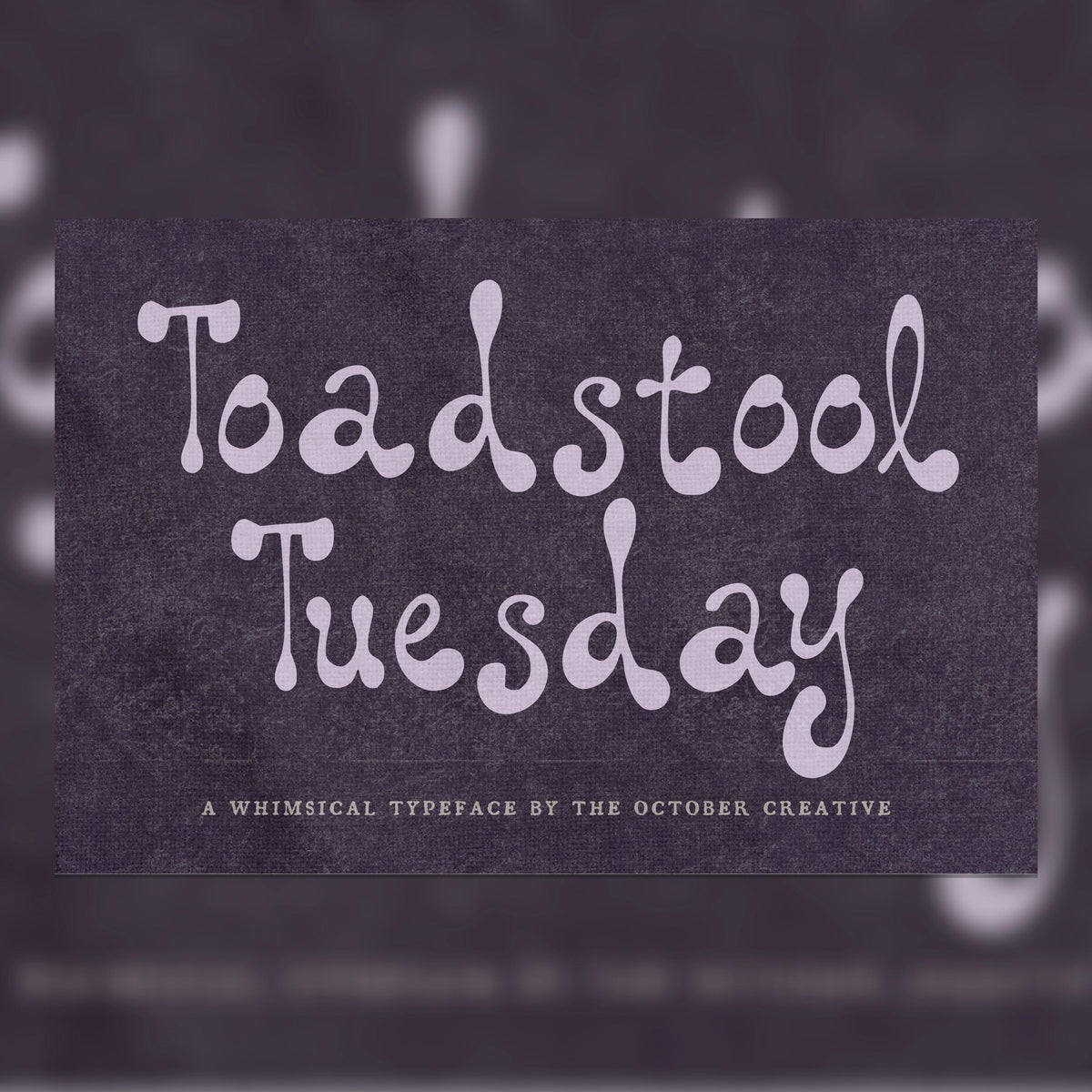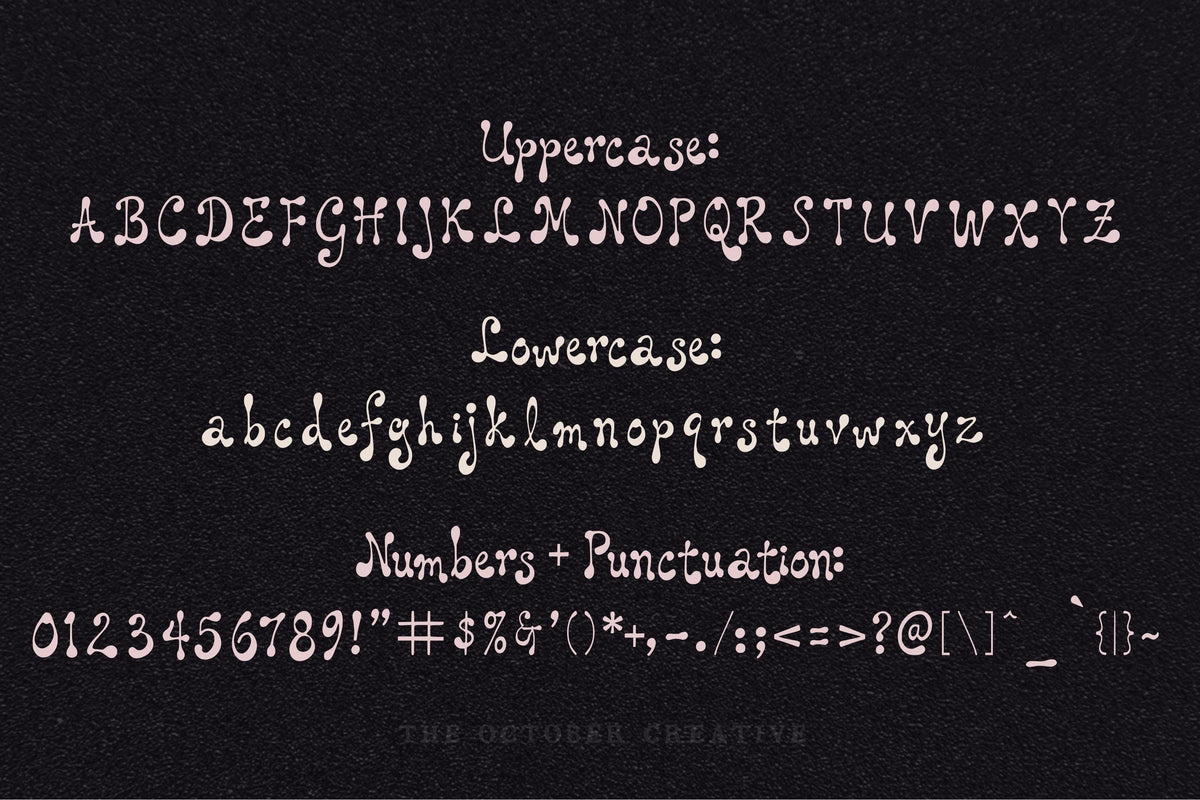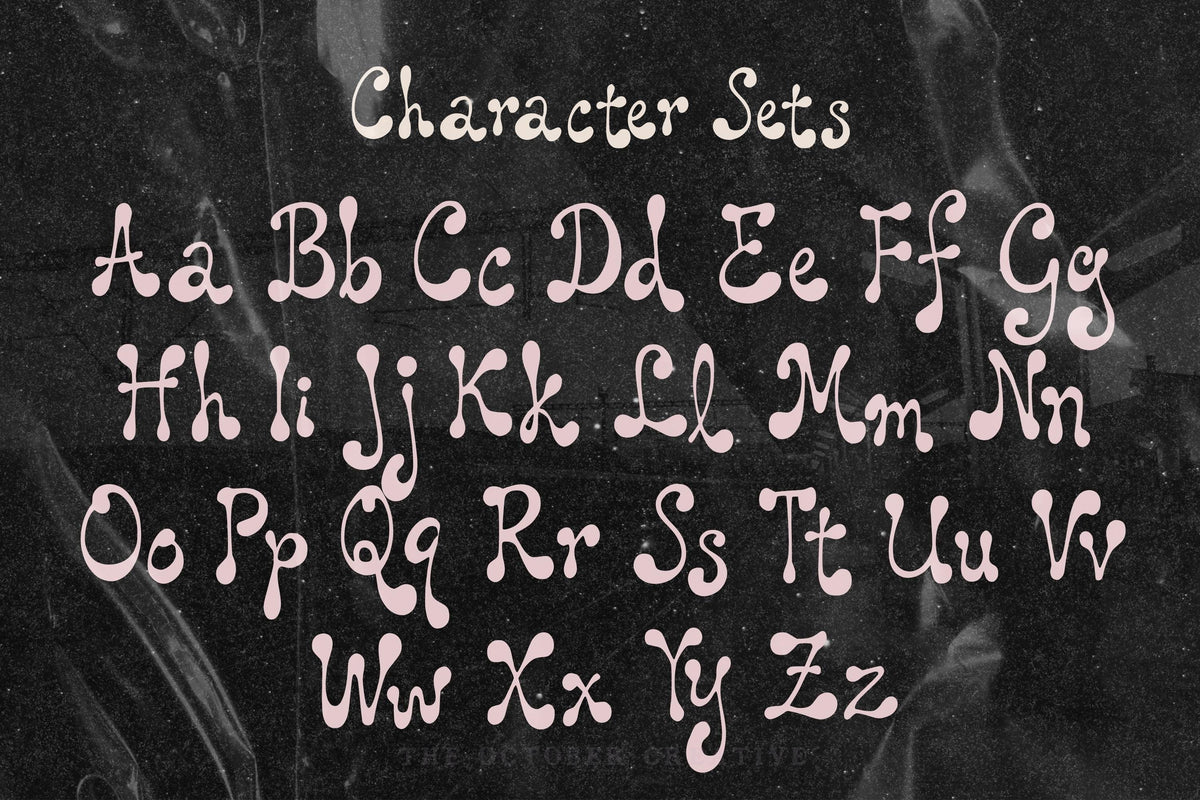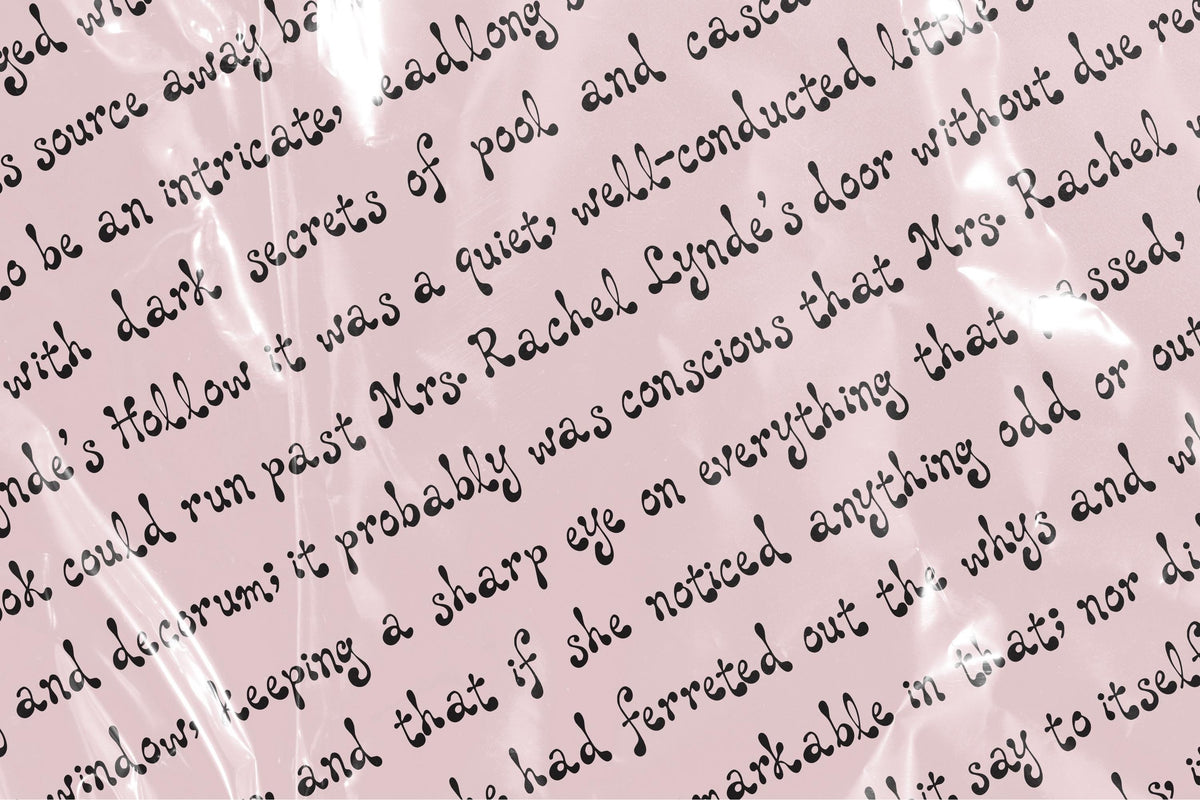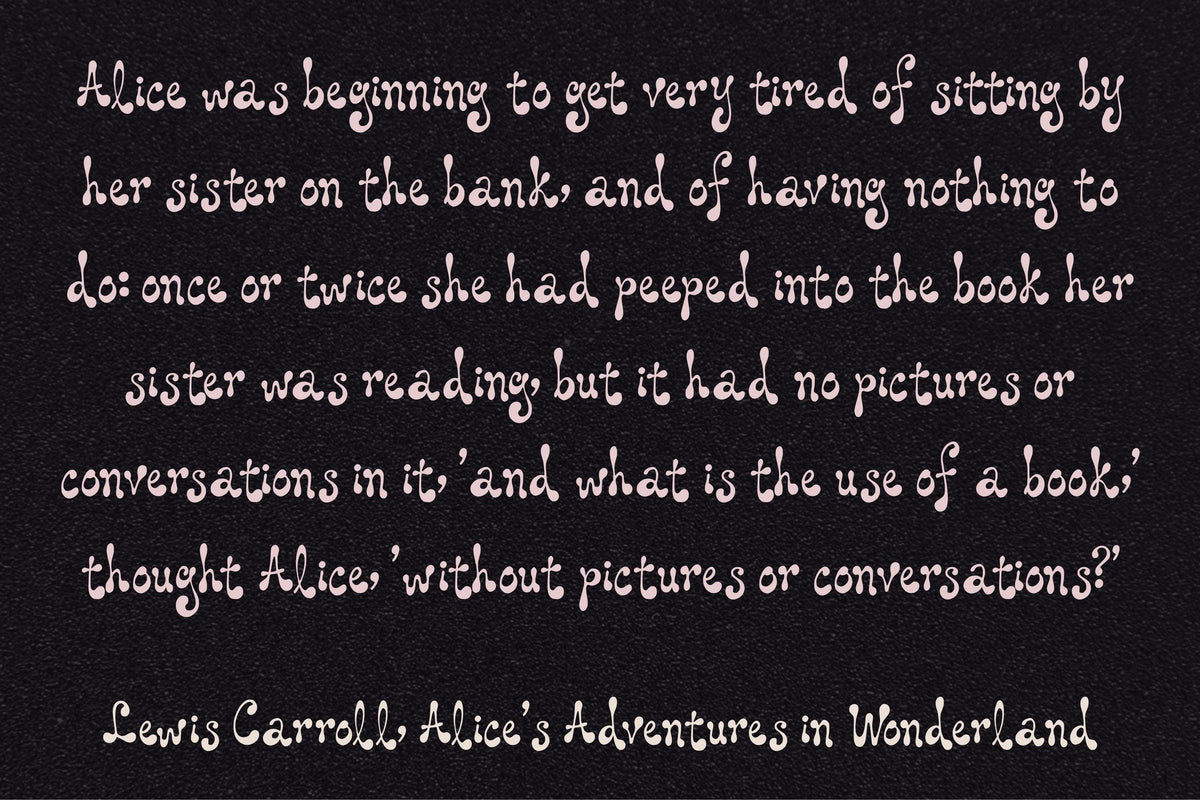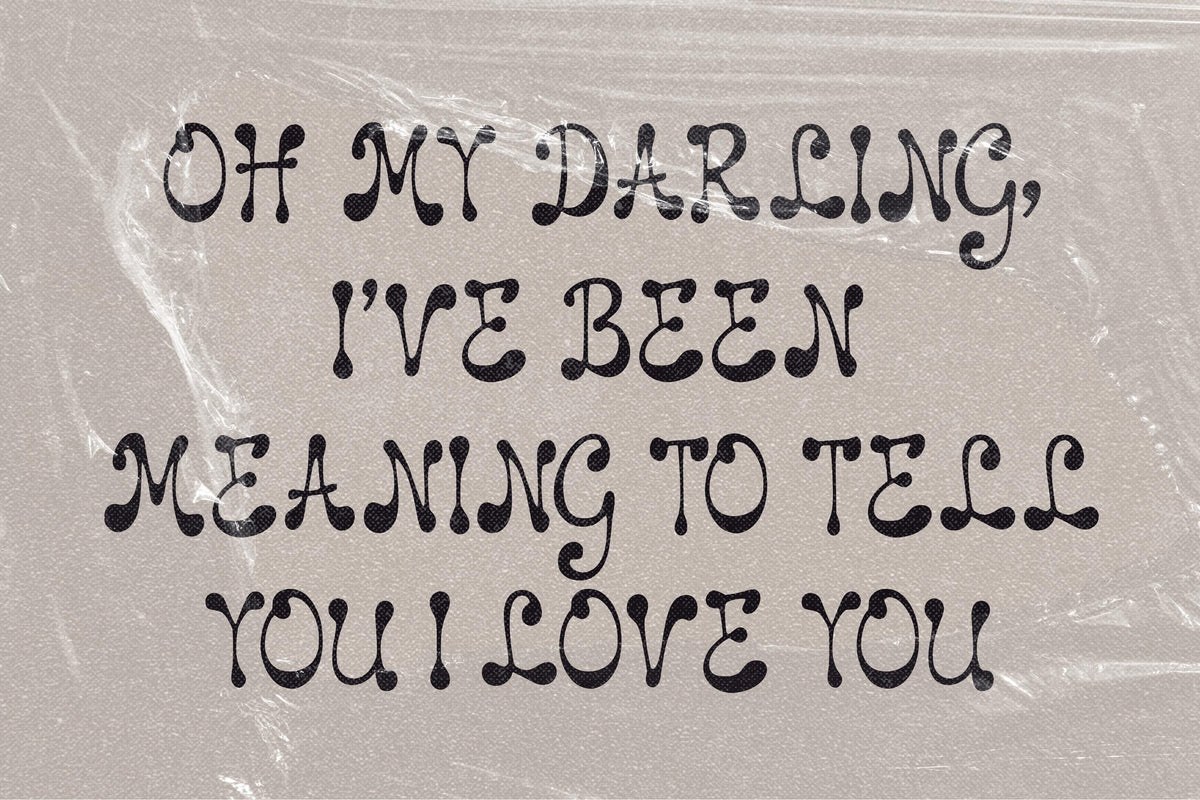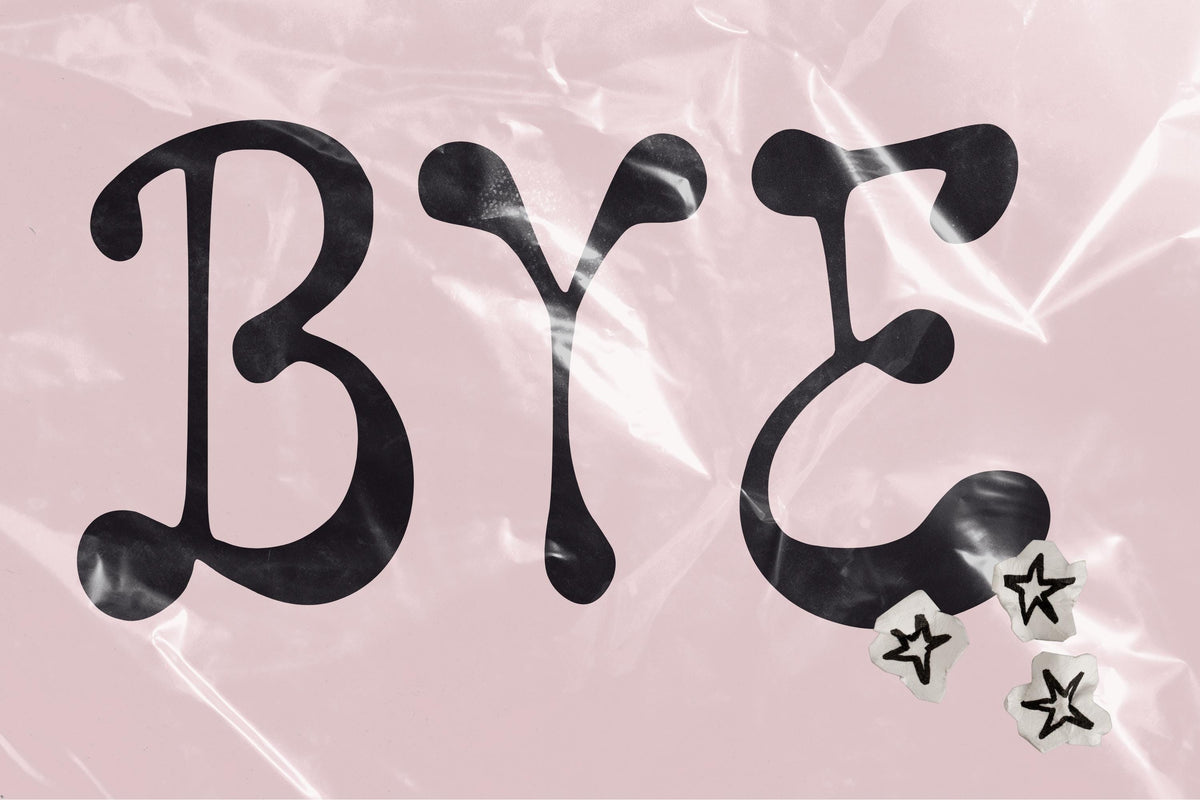
Toadstool Tuesday Font
Toadstool Tuesday brings plump 70s letters and a rolling bounce to woodland prints and cozy craft projects. Try it on garden signs, recipe cards, and little labels for homemade gifts.